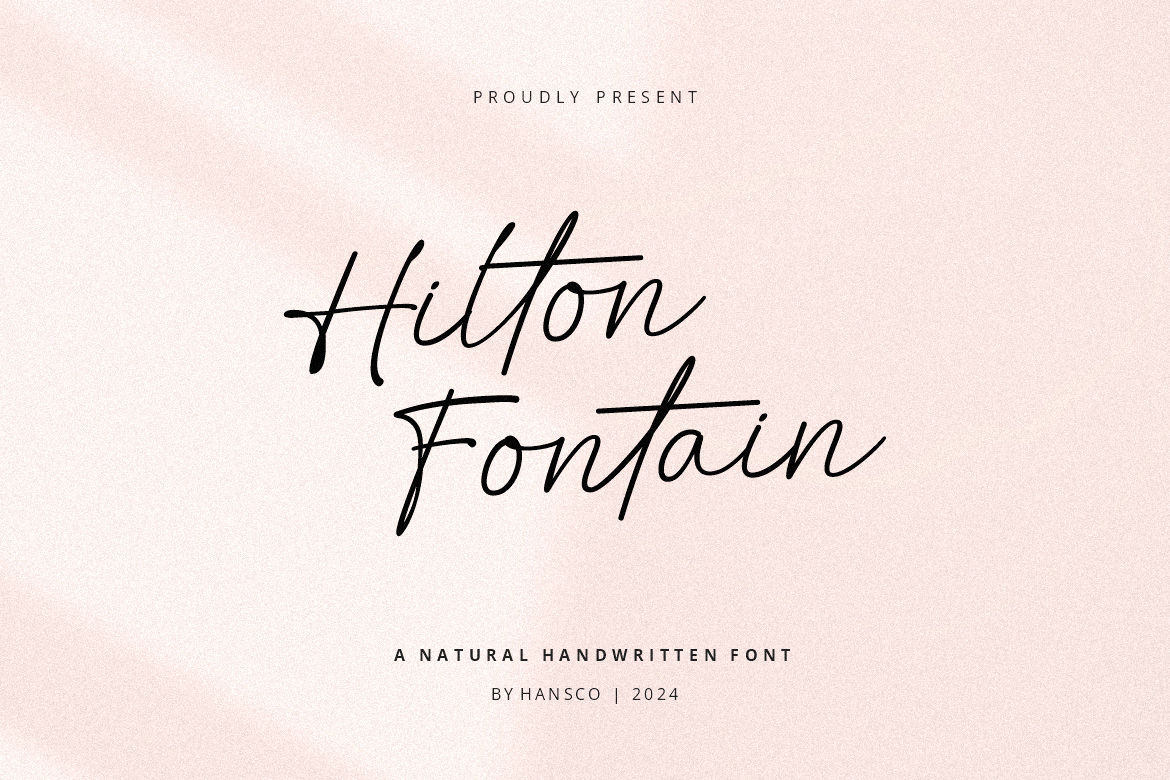
Font Cursive Guide: Tips and 12 Best Font Recommendations
When it comes to adding a personal, elegant touch to your designs, nothing beats a well-chosen font cursive. These fonts mimic natural handwriting, flowing beautifully from one letter to the next.
It’s perfect to create wedding invitations, brand logos, or social media graphics, as this type of font can instantly make your design feel more human and emotional.
But with hundreds of options out there, choosing the right one can feel tricky. Some cursive fonts look too formal, others too playful, and not all are easy to read.
That’s why in this guide, we’ll go through some quick tips and the best handwritten and signature-style fonts from HansCo Studio that you can start using right away!
Why Choose Font Cursive for Your Design?
In typography, cursive fonts are known for the fluid strokes that connect one letter to another, inspired by real handwriting. They evolved from calligraphy and quill writing.
What makes them so special is the personality they bring to the table. A good cursive font can make your text look elegant, romantic, or even luxurious depending on the style you choose.
Designers often use cursive fonts when they want to communicate warmth, creativity, or sophistication. For instance, wedding invitations, personal branding logos, and packaging designs often rely on cursive typography because it creates emotional impact.
Quick Tips: How to Use Cursive Fonts Like a Pro
To ensure your design is still elegant yet easy to read, follow these tips:
⦁ Keep It Readable
Cursive fonts are beautiful, but they can get messy if used too much. So, always prioritize readability. Avoid using cursive fonts for long paragraphs. Instead, use it for headers, quotes, or names where it can stand out clearly.
⦁ Pair It with Simplicity
When using a font cursive, balance it with a clean sans-serif or serif font. This contrast helps your design feel structured while letting the cursive text shine.
⦁ Match It with Your Mood
Every font has its own mood. Some feel romantic and whimsical, while others are modern and professional. Think about your project’s tone. A playful brand might suit a brush-style cursive, while a luxury logo might call for a sleek signature font.
⦁ Don’t Overuse Swashes
Swashes and decorative tails can be beautiful accents, but too many can overwhelm your design. Better use them strategically for initials or main titles only.
12 Best Cursive Fonts Recommendations from HansCo Studio
At HansCo Studio, our cursive collections are versatile. We have it all, from cute handwritten fonts to elegant signature scripts. Here are some fonts you can use:
Gracelyn Handwriting
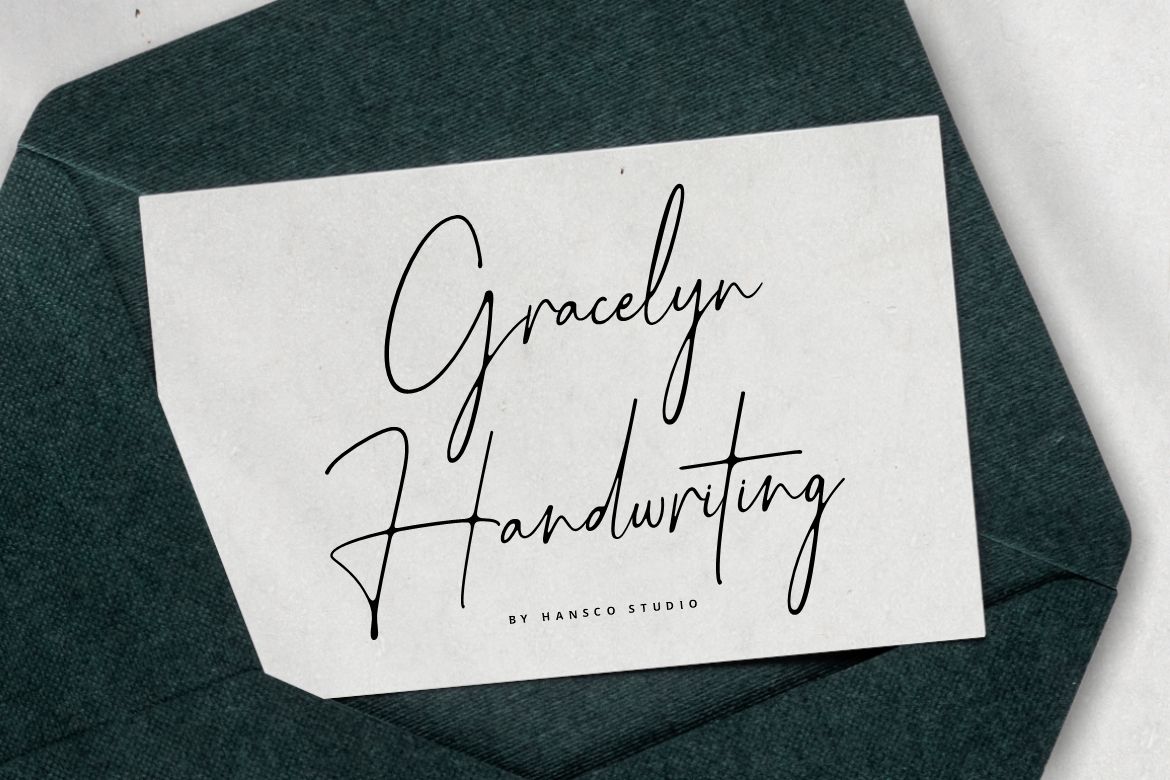
It’s elegant, refined, and smooth with long, graceful strokes that resemble a stylish personal signature. It feels luxurious without being too formal. The tall lettering gives off a modern and high-end impression.
Elontias
This is a chic font cursive with playful tails and perfect flow. This font is modern but has a romantic twist, ideal for feminine brands. Its alternate glyphs and ligatures make it extra dynamic.
Beauty Story
Sweet, soft, and approachable, this font combines rounded curves and a gentle rhythm that feels handwritten yet neat. Perfect for greeting cards, lifestyle branding, and social media posts. It’s cute but still clean enough for professional use.
Aurantiaca
Polished and sophisticated, Aurantiaca looks like a creative professional’s signature. The thin, tall strokes exude elegance and it’s the best option when you want something refined and stylish.
Ensley Wilson
If you want a more minimalist and natural option, check this one. Ensley Wilson feels personal like an authentic handwritten note. It works wonderfully for a clean and modern aesthetic.
Natalie Photograph
This font is tall, clean, and effortlessly beautiful. Its loops are elegant but not exaggerated, which offers readability with charm. As the name suggests, it suits photography logos. You can add a touch of creativity without being too ornate.
The Moment
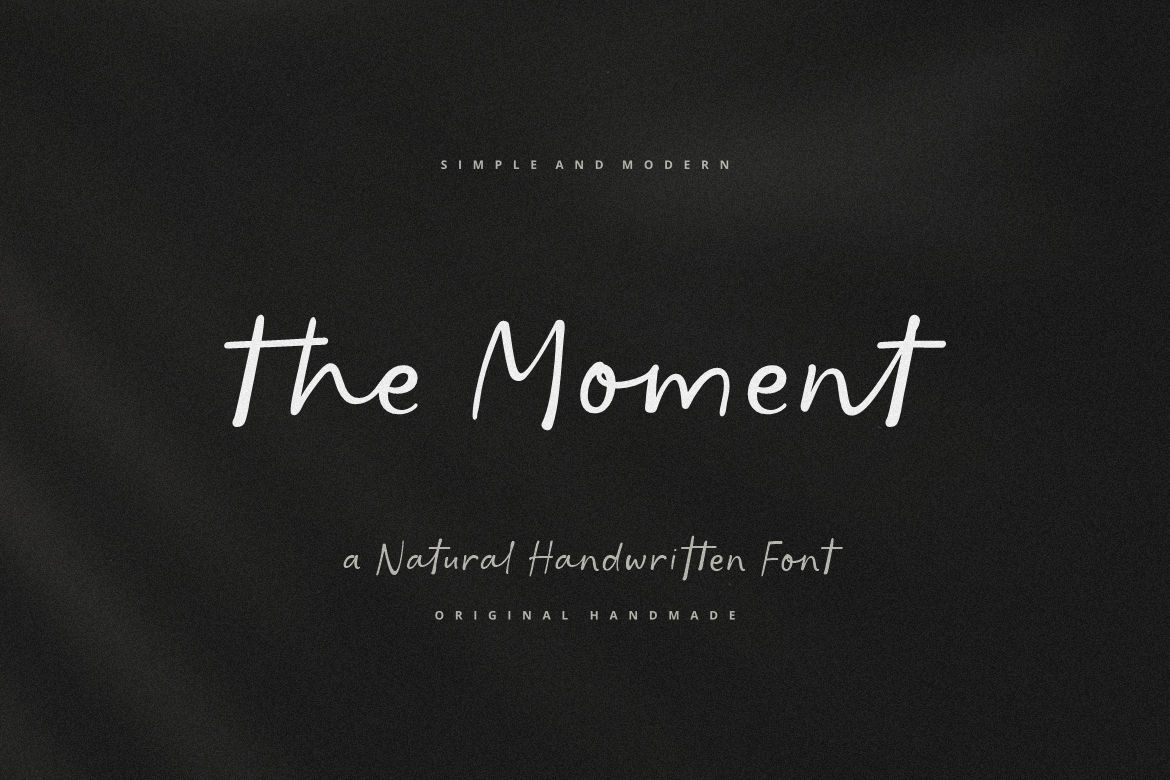
The Moment is a simple font cursive that feels honest and heartfelt. Each letter flows smoothly with calm, authentic, and timeless characters. You can choose it for inspirational quotes, journals, and branding materials.
Cathelia
The style and feel are modern and graceful. This font balances tall elegance with soft motion which makes it suitable for both luxury and everyday designs. With neat alignment, it’s very versatile across styles.
Bali Indonesia
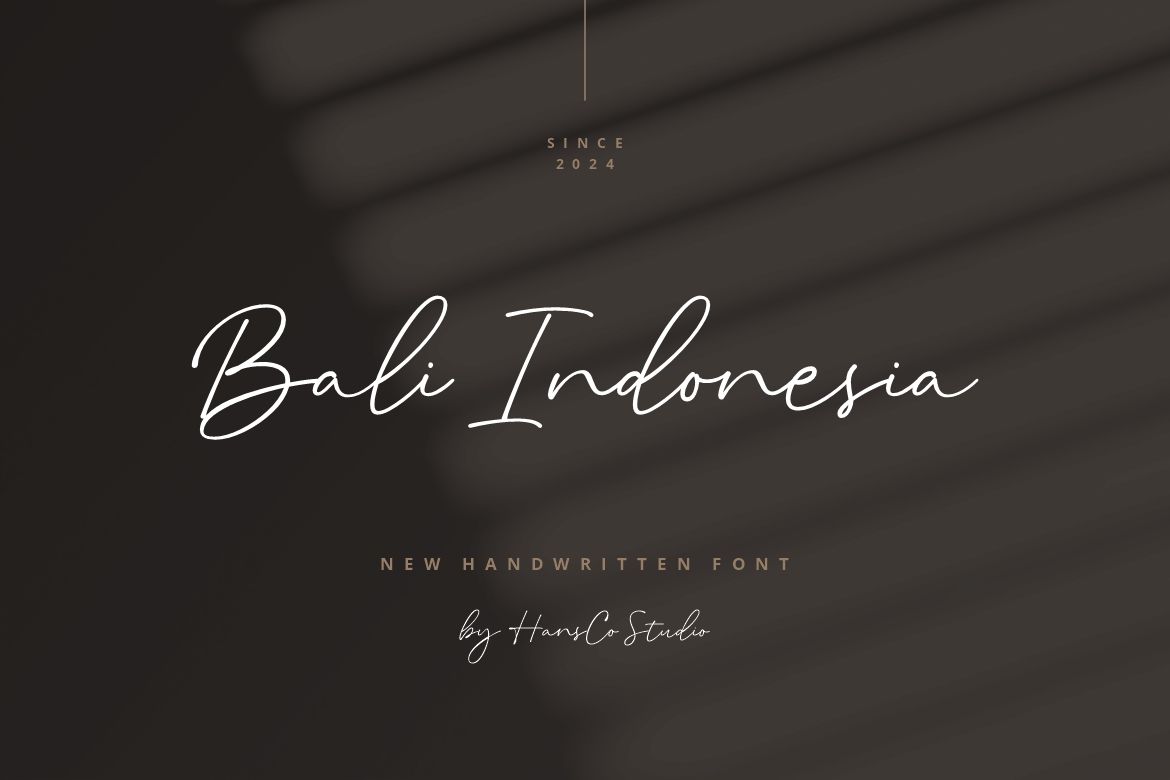
Have you heard about Bali? Yes, this font is inspired by calligraphy with tropical vibes. It’s flowing yet relaxed, just like a breeze from the island it’s named after. It’s perfect for creative projects that aim to capture freedom and artistry.
Love Line
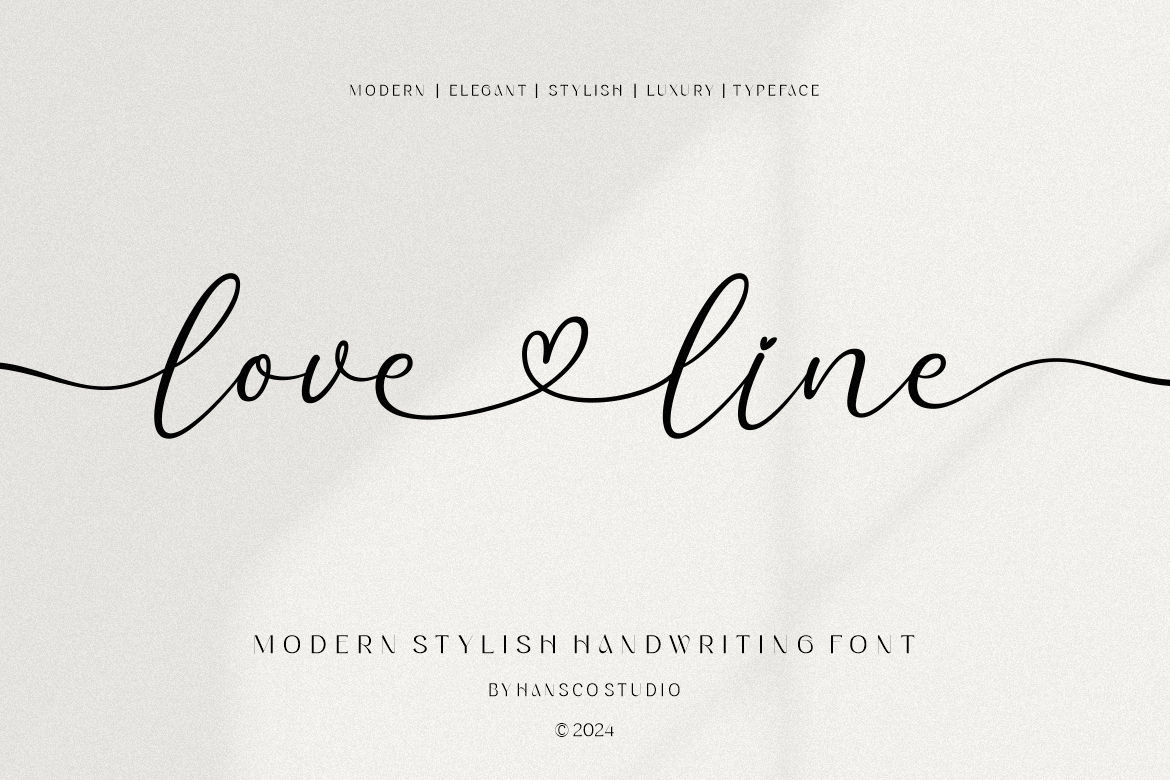
Are you looking for playful, romantic, and fun cursive fonts? This font comes with adorable heart details and ligatures that make it perfect for designs full of emotion. You can use it for Valentine’s promotions, wedding stationery, and personal gifts.
Lemontine
Lastly, Lemontine features rounded forms that make it a cozy yet refined option for contemporary projects. It’s one of the handwritten fonts that feels naturally balanced and looks modern.